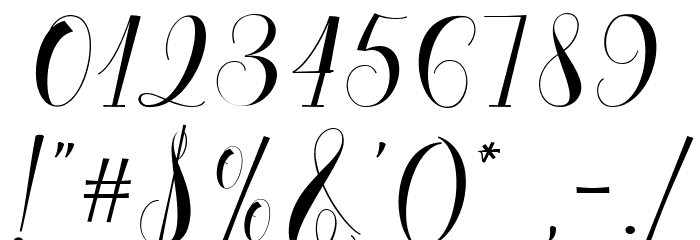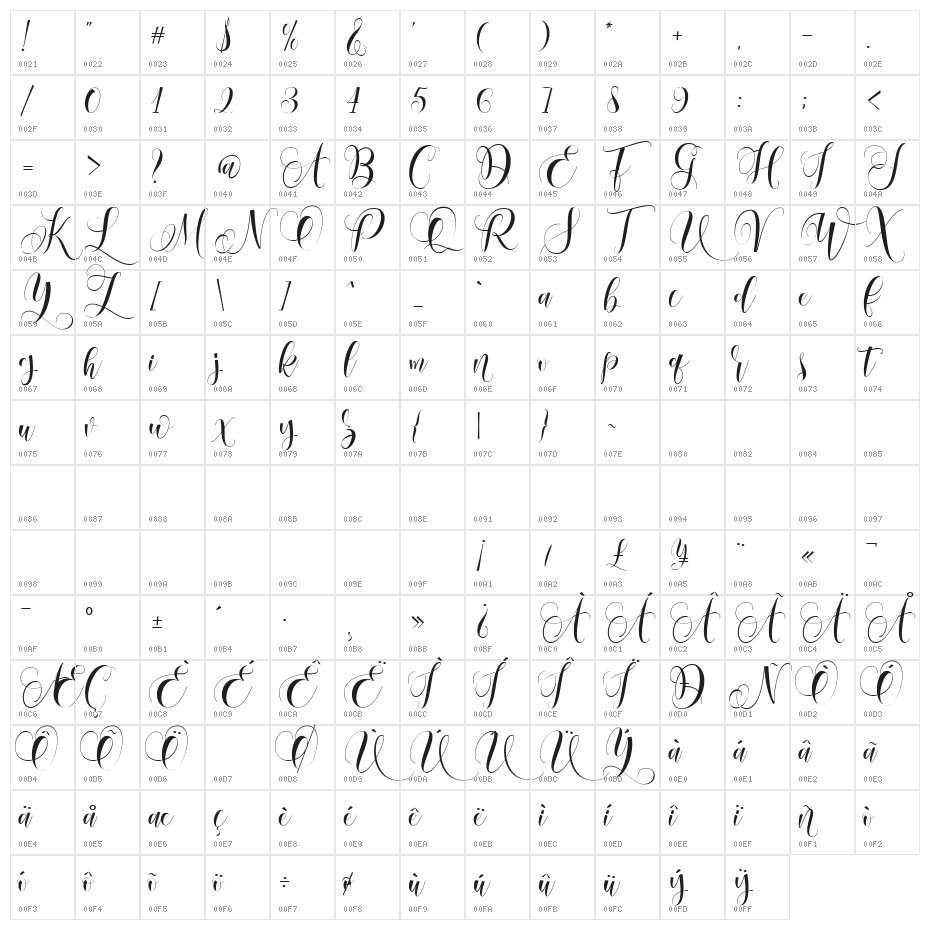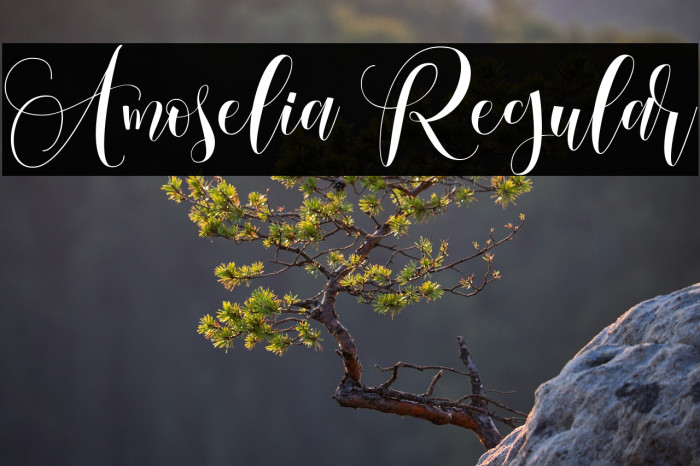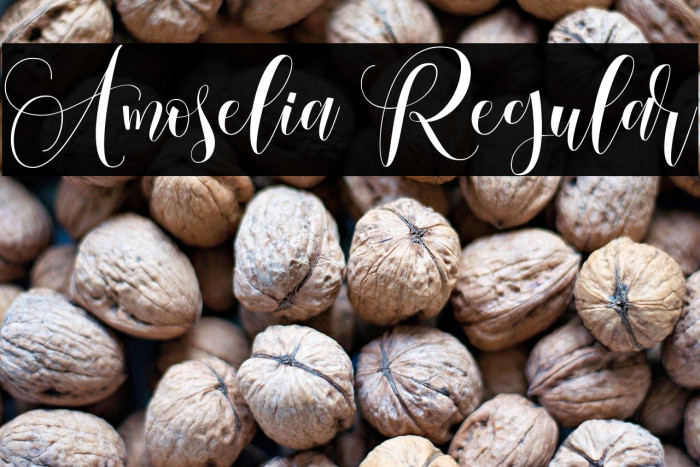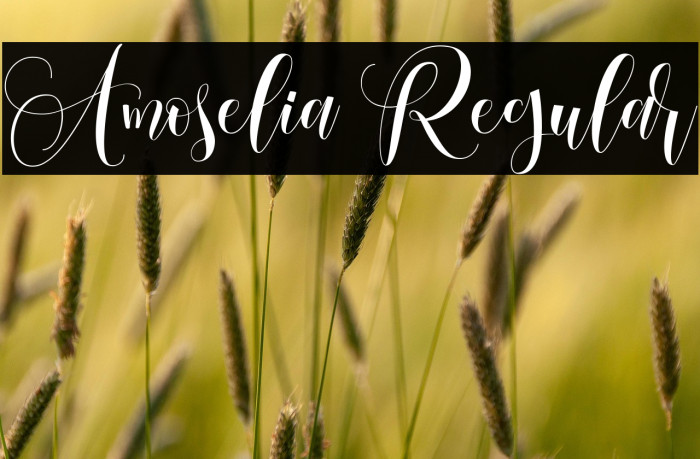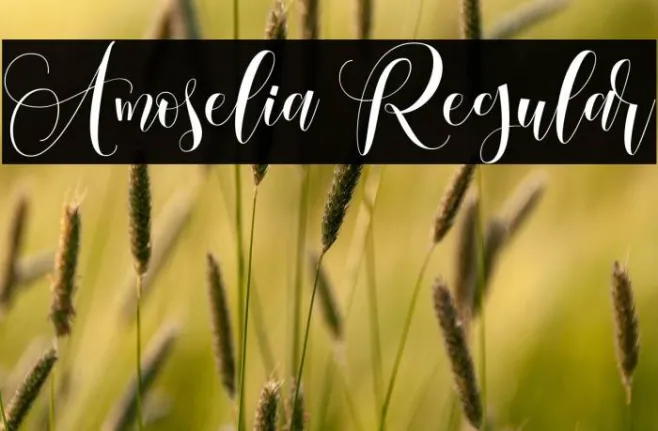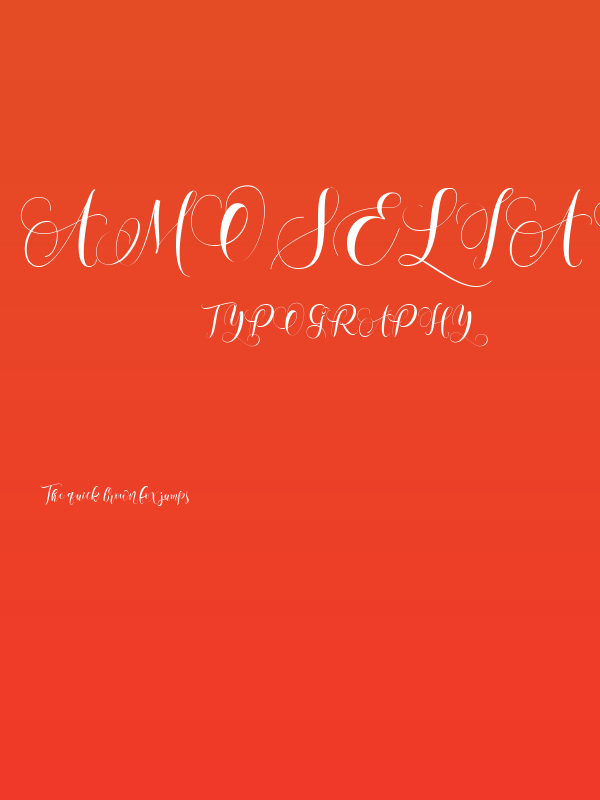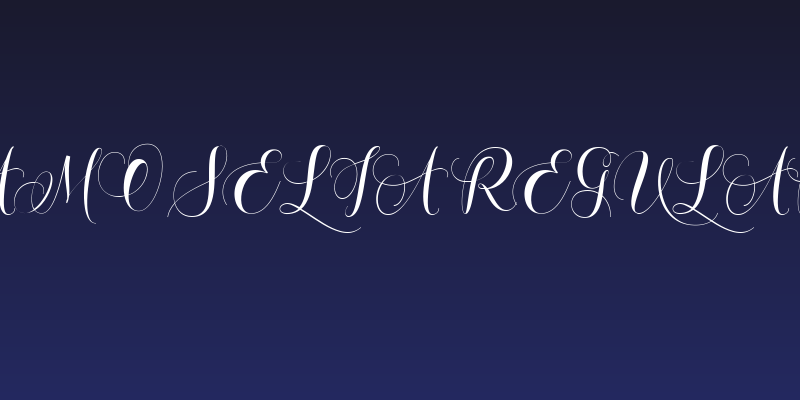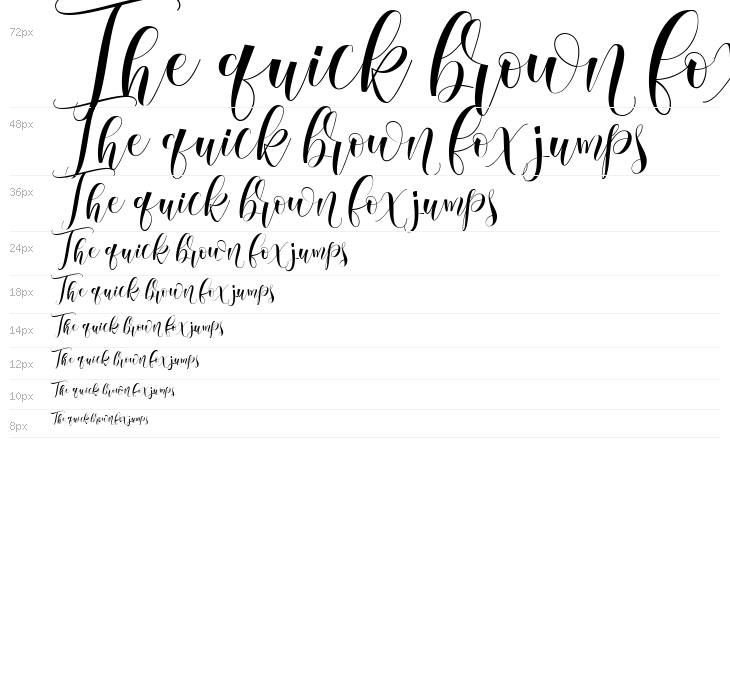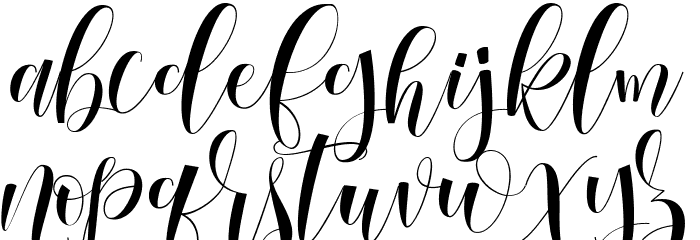
Amoselia Regular Font
Amoselia Regular Description
This elegant script font features a flowing, cursive style with intricate swashes and loops that give it a sophisticated and artistic appearance. The uppercase letters are particularly ornate, with elaborate flourishes that extend beyond the baseline and cap height, creating a sense of movement and grace. The lowercase letters maintain a consistent style, with smooth, rounded forms and subtle variations in stroke width that add to the font's dynamic quality. The numerals are equally stylish, with a harmonious blend of curves and straight lines. Special characters are thoughtfully designed to match the overall aesthetic, making this font versatile for various creative applications.
| Overall Style | Elegant, Artistic |
| Proposed Projects | Ideal for wedding invitations, elegant branding, luxury packaging, and artistic posters. |